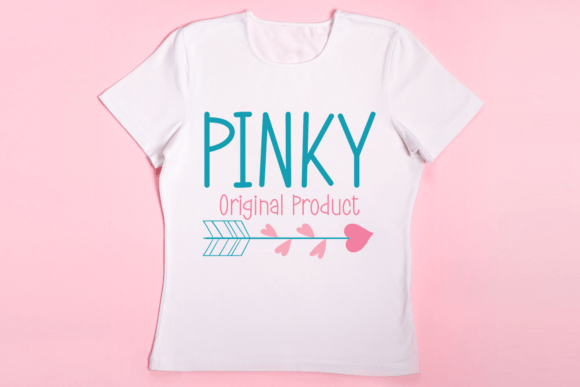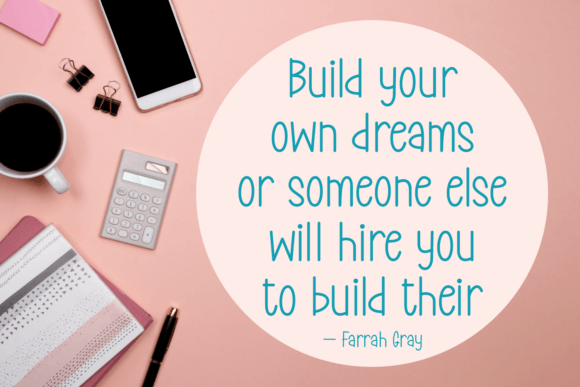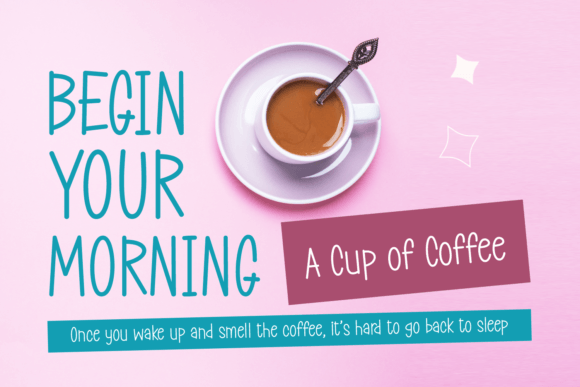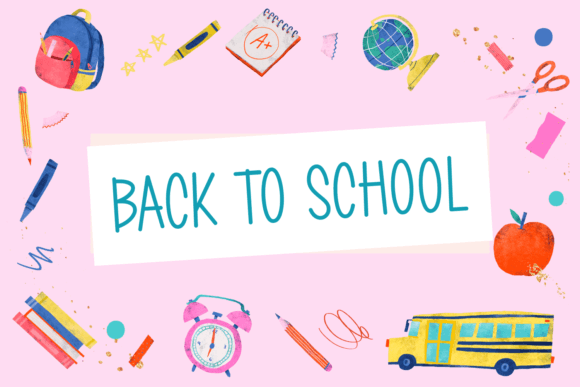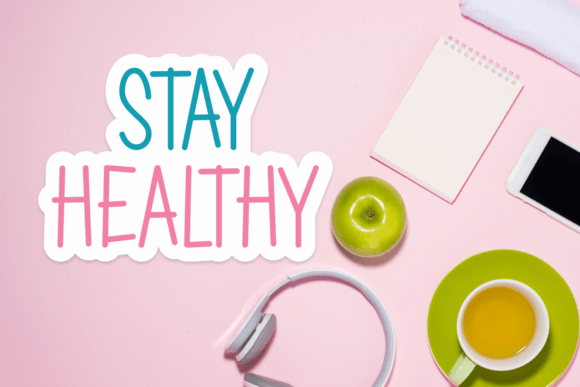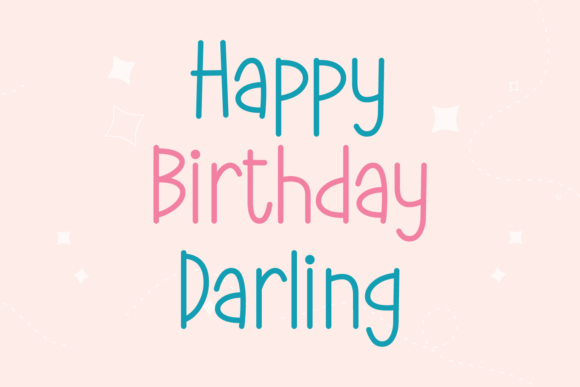
Introducing Good Service Font: The Perfect Blend of Simplicity and Elegance
In the world of typography, fonts play a crucial role in shaping the visual identity of a brand, product, or service. With the ever-growing demand for unique and versatile fonts, Good Service font has emerged as a game-changer. This minimalist handwritten font is characterized by its clean, simple lines and casual, modern feel, making it an ideal choice for designers, crafters, and businesses looking to elevate their visual communication.
What Makes Good Service Font Stand Out?
Good Service font boasts a distinctive, hand-crafted aesthetic that sets it apart from other fonts. Its clean lines, simple strokes, and modern feel make it perfect for a wide range of applications, from branding and social media graphics to invitations, logos, and everyday print materials. The font’s natural flow and charm of handwriting add a touch of warmth and personality, making it suitable for both professional and creative contexts.
Key Features of Good Service Font
- Minimalist Design: Good Service font features a minimalist design with clean lines, simple strokes, and a modern feel.
- Handwritten Charm: The font retains the natural flow and charm of handwriting, adding a touch of warmth and personality.
- Versatile: Suitable for a wide range of applications, including branding, social media graphics, invitations, logos, and everyday print materials.
- Professional and Creative: The font’s modern, clean aesthetic makes it perfect for both professional and creative contexts.
Why Choose Good Service Font?
With the abundance of fonts available, why should you choose Good Service font? Here are a few compelling reasons:
- Unique Visual Identity: Good Service font helps you create a unique visual identity that sets you apart from the competition.
- Easy to Read: The font’s clean lines and simple strokes make it easy to read, even at small sizes.
- Customizable: Good Service font can be easily customized to fit your brand’s style and personality.
- Time-Saving: With Good Service font, you can save time and effort in designing and crafting your visual materials.
Use Cases for Good Service Font
Good Service font is an incredibly versatile font that can be used in a variety of contexts. Here are some use cases:
- Branding: Use Good Service font to create a unique and memorable brand identity.
- Social Media Graphics: The font is perfect for creating engaging social media graphics, such as posts, stories, and ads.
- Invitations: Good Service font is ideal for designing invitations, such as wedding invitations, birthday invitations, and more.
- Logos: The font can be used to create a simple yet effective logo that represents your brand.
- Everyday Print Materials: Use Good Service font for everyday print materials, such as brochures, flyers, and business cards.
Tips for Using Good Service Font
Here are some tips for using Good Service font effectively:
- Pair with Other Fonts: Experiment with pairing Good Service font with other fonts to create a unique visual identity.
- Adjust Font Size: Adjust the font size to suit your design needs, ensuring that the text is easy to read.
- Use Color Effectively: Use color effectively to make your design pop and enhance the overall visual appeal.
Good Service font is a versatile and elegant font that can elevate your visual communication. Its minimalist design, handwritten charm, and modern feel make it perfect for a wide range of applications. Whether you’re a designer, crafter, or business owner, Good Service font is an excellent choice for creating a unique visual identity. With its ease of use, customizability, and time-saving features, Good Service font is sure to become a favorite in your design arsenal.